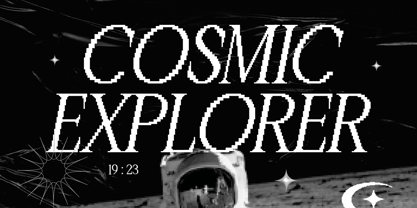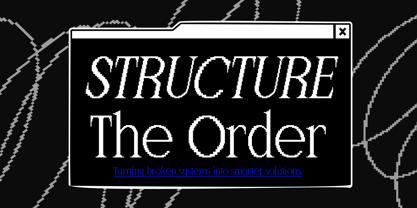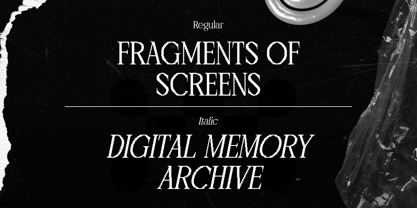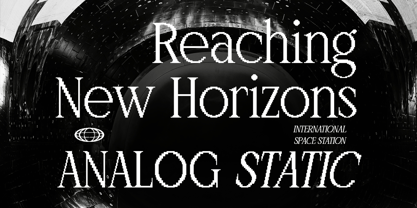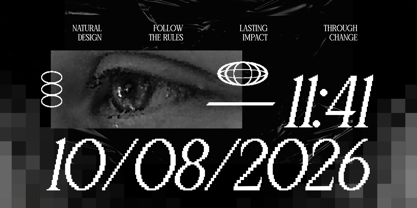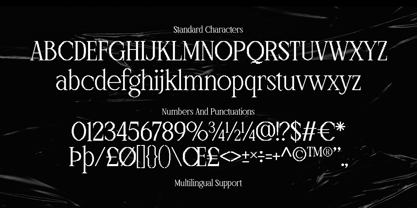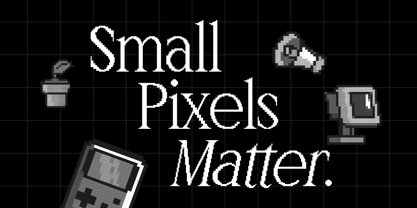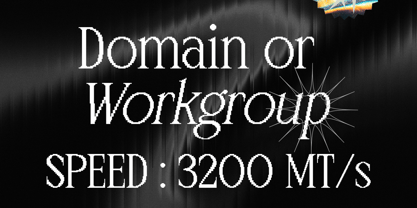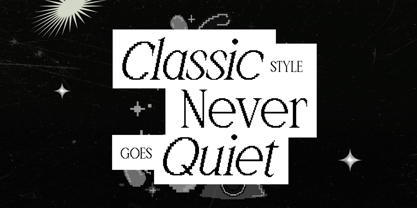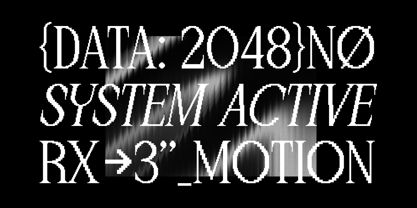
Windraw Aesthetic
by Arterfak Project
The Windraw Aesthetic Font Family was designed by Ahmad Ramzi Fahruddin and published by Arterfak Project. Windraw Aesthetic contains 2 styles and family package options. More about this family
Windraw Aesthetic is a pixel serif with a refined, high-contrast character. It takes the elegant proportions of classic serif typography and translates them into a pixel-based form, creating an unusual tension between elegance and technology, nostalgia and futurism. Thin strokes, sharp serifs, and visible pixel edges give it a distinctive digital character.
Unlike chunky pixel fonts that lean heavily into an arcade or retro-game aesthetic, Windraw keeps a more elegant and editorial feel. What would a sophisticated serif look like if it were drawn on a pixel grid? The answer is a typeface that feels nostalgic without being overly retro, and futuristic without losing its typographic character.
With Regular and Italic styles, Windraw Aesthetic works beautifully for posters, editorial layouts, fashion graphics, album artwork, branding, technology, sci-fi, gaming, and experimental design. It’s made for designers who want something familiar enough to use, but unusual enough to make people stop and look twice.